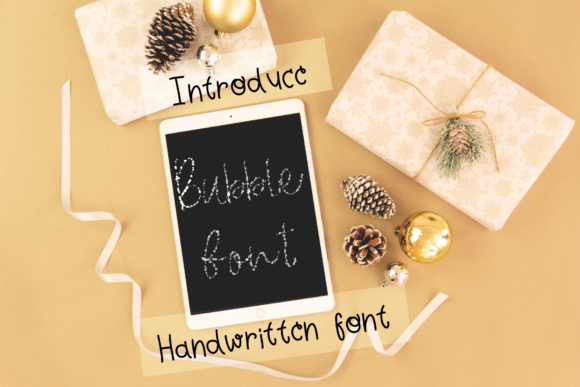
Adding a Pop of Personality with Bubble Font
Have you ever stared at a blank page or screen, waiting for inspiration to strike? We’ve all been there. But what if we told you that the perfect spark can come from the most unexpected places? For us, it’s often in the simple yet striking details – like the perfect font. Take, for instance, the whimsical world of handwritten fonts. One that stands out from the crowd is the delightful Bubble Font.
This charming font is more than just a pretty face; it’s a tool that can elevate your creative projects to the next level. Whether you’re designing a logo, creating a social media post, or crafting a custom invitation, the Bubble Font adds a playful touch that’s hard to resist. And the best part? It’s versatile enough to fit any style or theme, making it a valuable asset for designers looking to add some personality to their work.
- Unique Characteristic: The Bubble Font features a distinctive rounded, bubbly shape, making it ideal for playful and whimsical designs.
- Kerning and Ligatures: Includes advanced kerning and ligature features for precise text rendering and a polished aesthetic.
Bubble Font Review
Overall, I think the Bubble Font is a unique and fun addition to any design project. It has a playful, whimsical feel that can add a lot of personality to a design. ✨ The irregular shape and rounded edges give it a soft, friendly look that can work well for children’s products, food brands, or anything else that needs a lighthearted touch.
One of the things I like most about the Bubble Font is its versatility. It comes in a range of weights and styles, from light to bold, which makes it easy to use in a variety of contexts. ✨ It’s also relatively easy to read, even in smaller sizes, which is a plus for designs where text needs to be displayed in a concise way.
- ⚠️ Limited legibility in very small sizes, may require adjustments to make it readable
- ⚠️ Can be overwhelming if used too extensively, may be better suited for accent text or titles
- ⚠️ Some users may find it too playful or childish, which may not be suitable for all brands or projects
Overall, I think the Bubble Font is a great choice for designers looking to add some whimsy to their projects. While it has its limitations, I think its unique look and versatility make it a valuable addition to any design toolkit.
Tips for Getting the Most Out of Bubble Font
Use Bubble Font to add visual interest to your text, highlight important information, or create a playful and whimsical design. Experiment with different bubble sizes, colors, and spacing to achieve the desired effect.
Bubble Font is commonly used in:
- Children’s books and educational materials.
- Party invitations and decorations.
- Wedding invitations and decorations.
- Marketing and advertising materials.